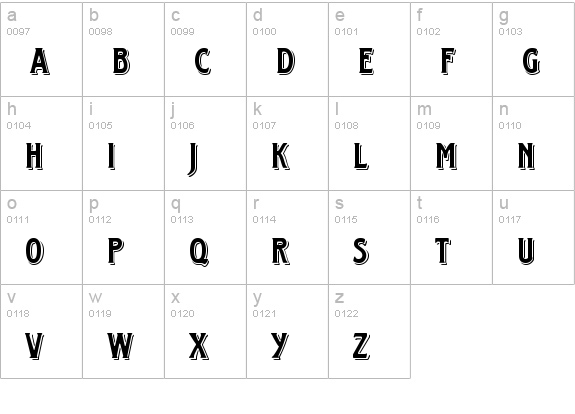
HorndonEF font is a stylish and versatile typeface that combines classic elegance with a modern twist. With its sleek lines and sophisticated curves, this font is perfect for a wide range of design projects, from branding to editorial layouts. The HorndonEF font exudes a sense of sophistication and professionalism, making it ideal for both print and digital applications. What sets HorndonEF font apart is not just its aesthetic appeal, but also its versatility. Whether you're looking to create a sleek logo, elegant wedding invitations, or eye-catching social media graphics, this font has you covered. Its clean, crisp lines ensure readability at any size, while its unique character adds a touch of personality to your designs. And the best part? HorndonEF font is available for free download at FontsMarket.com. So go ahead and elevate your design projects with this stunning font that combines timeless elegance with a contemporary edge.